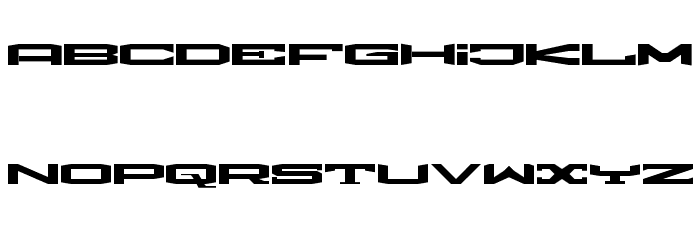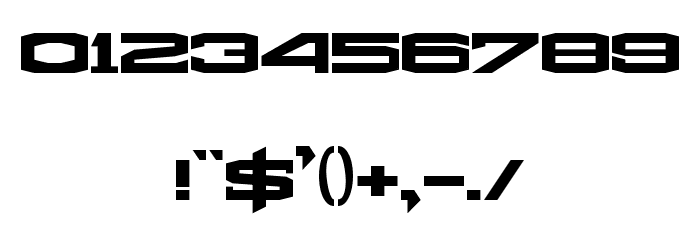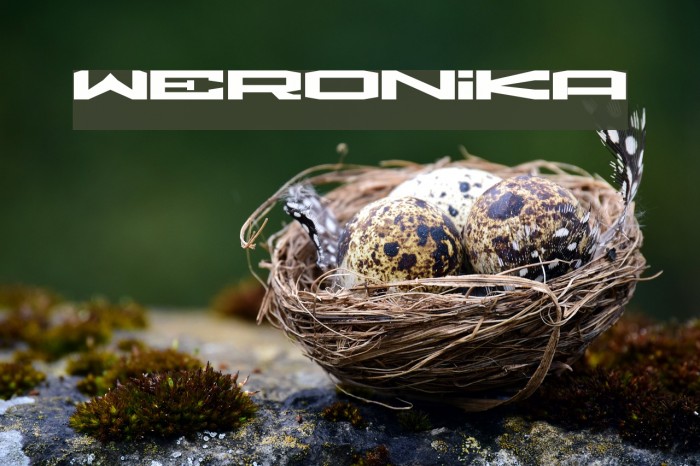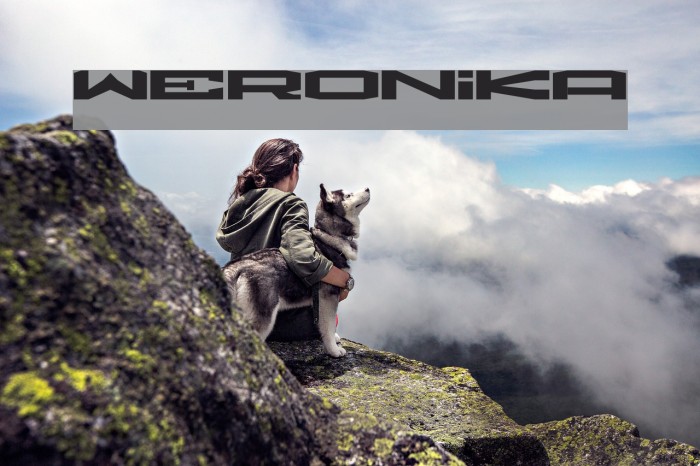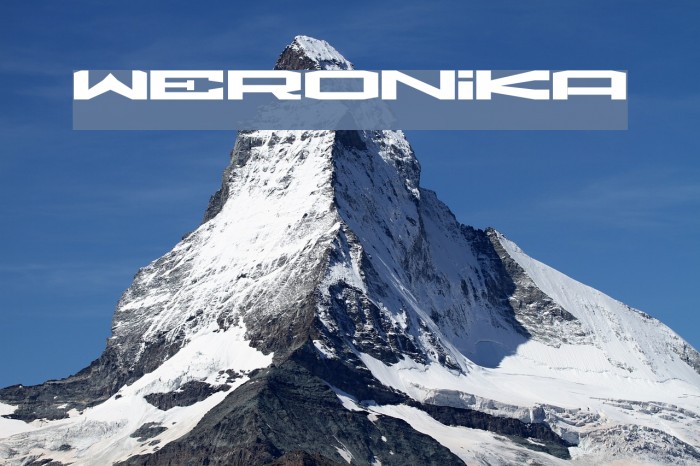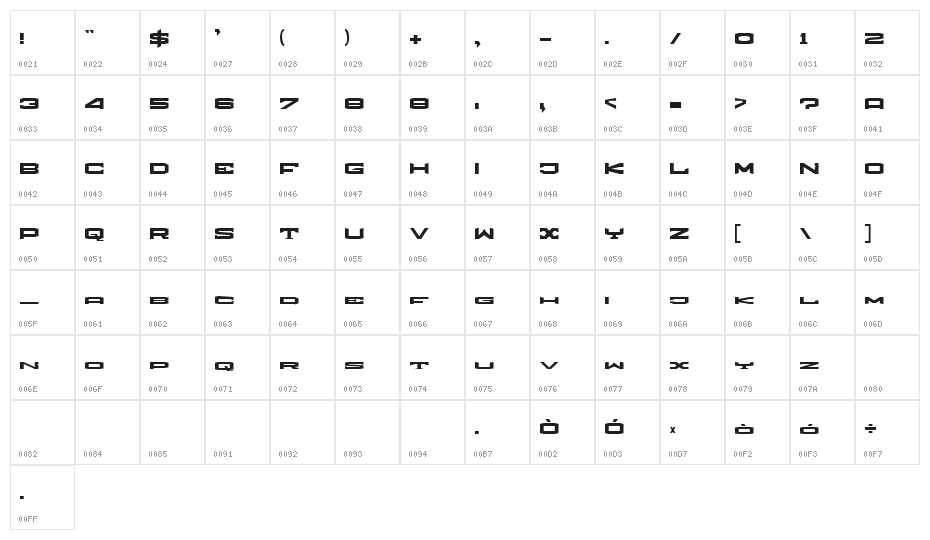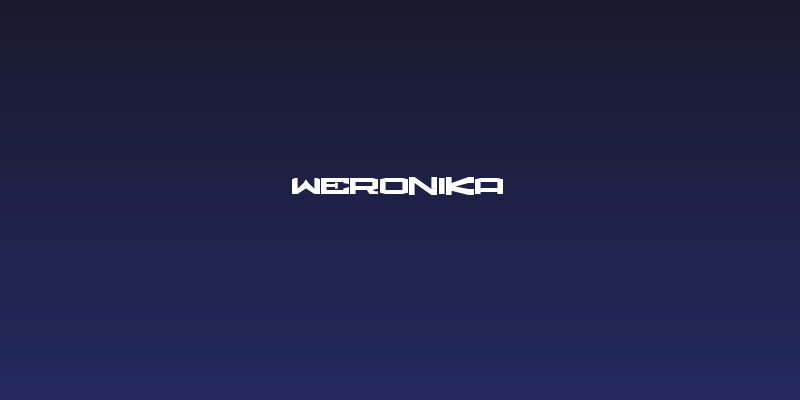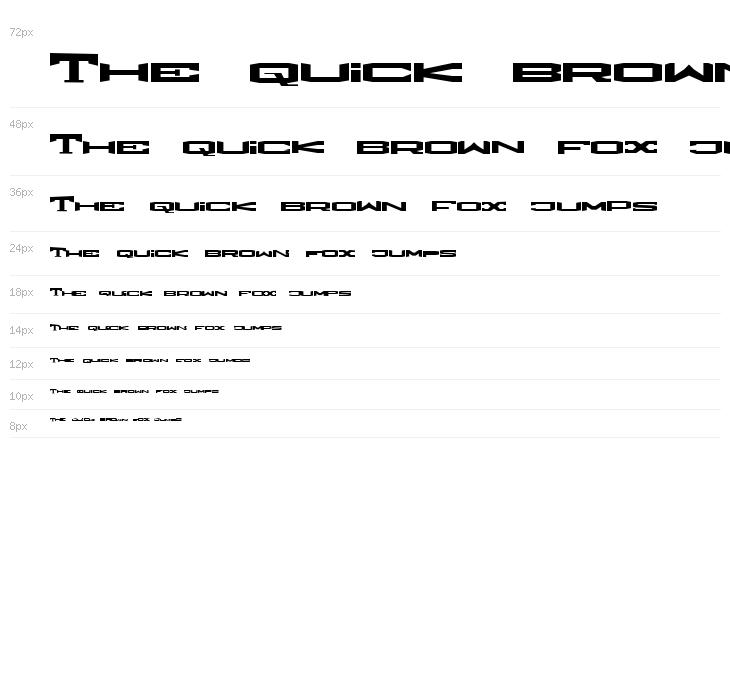
weronika Font
This font features a bold, futuristic design with angular and geometric shapes. The characters are constructed with sharp edges and a distinct block-like appearance, giving it a modern and tech-inspired feel. The uppercase and lowercase letters maintain a consistent style, with a uniform height and width that enhances readability. The numbers and special characters follow the same design principles, ensuring a cohesive look across all elements. The font's unique style makes it suitable for projects that require a strong visual impact.
A bold, futuristic font with angular, geometric shapes and a tech-inspired design.
- Proposed Projects: Ideal for technology branding, sci-fi movie posters, video game titles, and modern advertising campaigns.